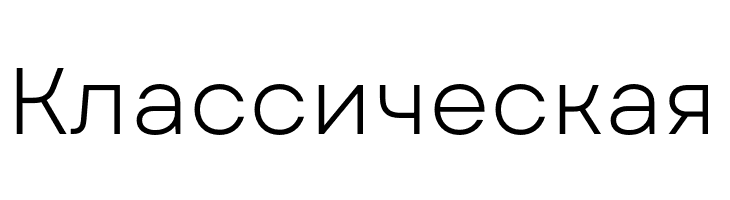
A bold, italic font with a dynamic and modern style.
A thin, elegant italic font with a modern and minimalist style.
A bold, rounded font with a playful and modern style.
A bold, playful font with rounded edges and a retro vibe.
A playful, rounded font with bold, uniform strokes and smooth curves.
A flowing, elegant script font with a handwritten aesthetic.
A bold, flowing script font with elegant curves and a playful style.
An elegant, flowing script font with ornate uppercase letters and smooth cursive lowercase forms.
A bold, playful handwritten font with dynamic strokes.
A thin, italicized handwritten font with a dynamic and elegant style.
A bold, italic handwritten font with dynamic strokes and a smooth flow.
A decorative script font with heart motifs, perfect for romantic designs.
A romantic script font with heart motifs and bold, flowing letterforms.
An elegant script font with intricate swashes and a flowing, cursive style.
A bold, brush-style script font with dynamic and expressive characters.
A rugged, hand-drawn font with a distressed, historical appearance.
A dynamic and elegant script font with a flowing, handwritten style.
Bold, slanted font with a modern, dynamic style.
A bold, high-contrast serif font with dramatic strokes and elegant serifs.
A bold, brush-style font with dynamic, slanted strokes for an energetic look.
A modern, geometric font with bold, clean lines and a slightly condensed style.
A bold, geometric font with a futuristic, digital aesthetic.
A bold, modern font with geometric, angular characters.
A bold, decorative font with gothic and tribal influences, featuring intricate and angular designs.
A sleek, modern italic font with a geometric and dynamic style.
A bold, modern font with geometric shapes and sharp angles.
A bold, modern font with clean lines and a geometric style.
A modern, rounded sans-serif font with a friendly and approachable style.
A modern, clean sans-serif font with uniform stroke width and balanced spacing.
A modern, geometric sans-serif font with a clean and balanced design.
A bold, modern sans-serif font with uniform strokes and a strong presence.
A playful, elegant script font with a handwritten style.
A modern, high-contrast font with elongated, narrow characters and elegant serifs.
A bold, geometric font with strong, angular lines and an industrial feel.
A lively, handwritten font with fluid strokes and dynamic energy.